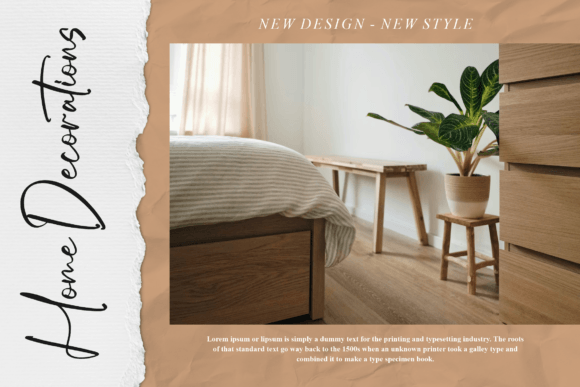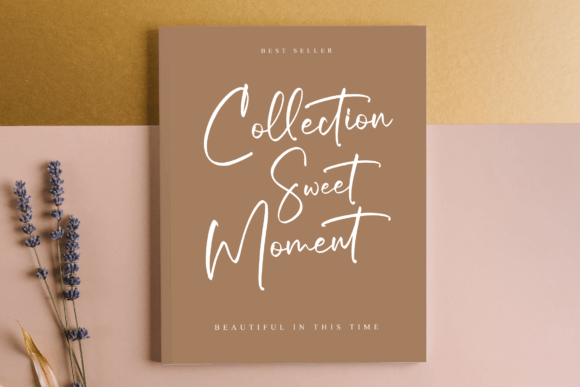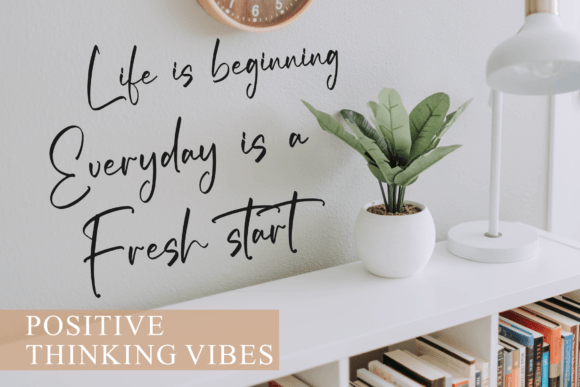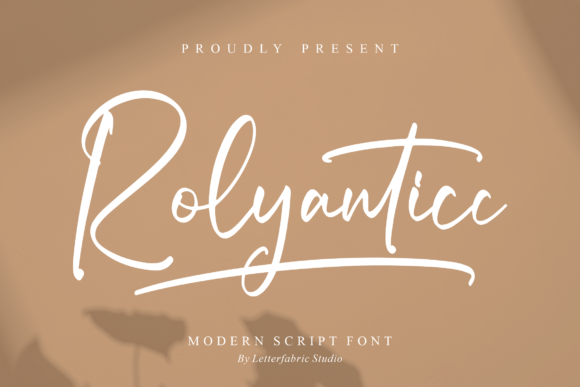
Introduction to Rolyanticc Font
Rolyanticc is a dazzling script font.
This font is neatly crafted and highly detailed Whatever the topic, this font will be a wonderful asset to your font library, as it has the potential to enhance any creation.
Rolyanticc Font offers exceptional quality and versatility, making it a valuable addition to your design toolkit. Whether you’re creating for personal projects or commercial use, Rolyanticc Font delivers professional results.